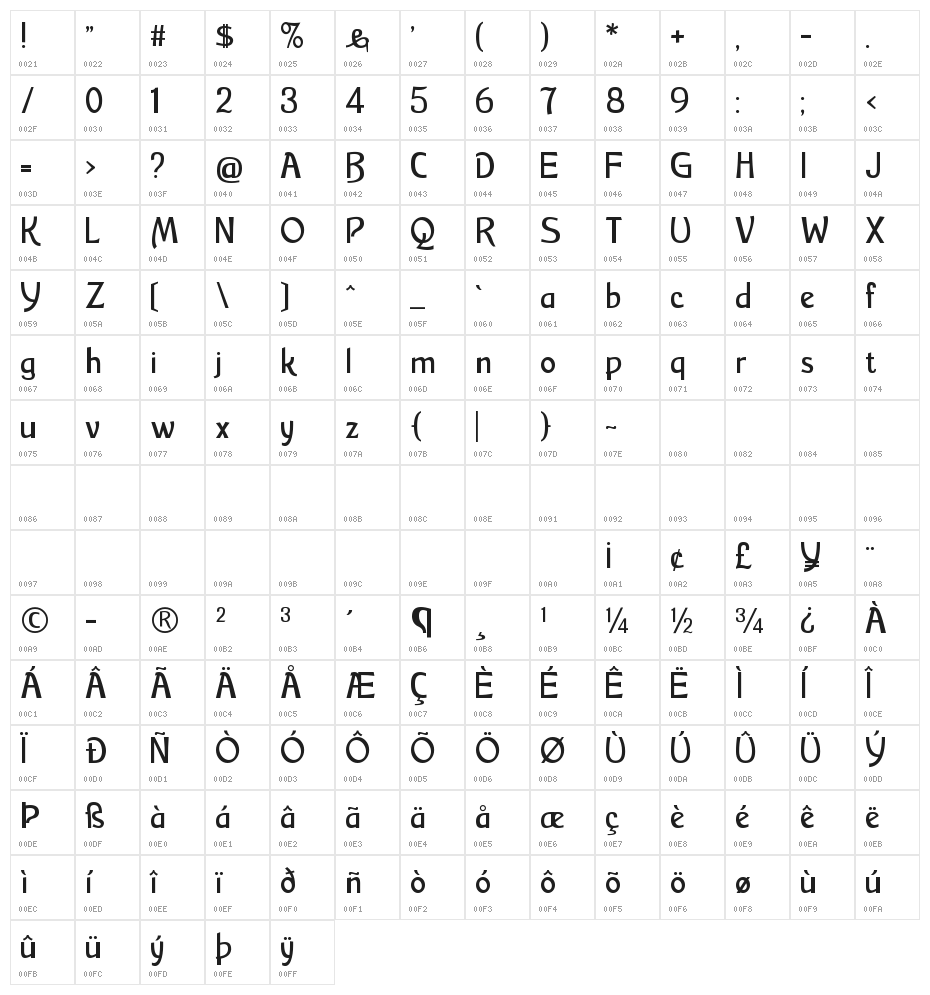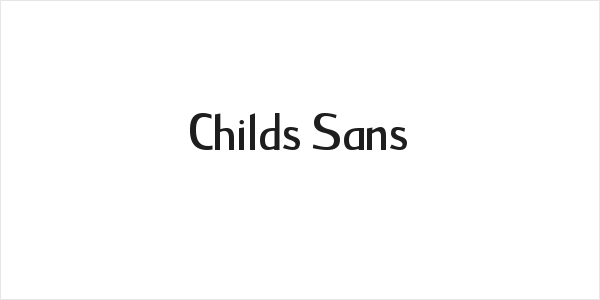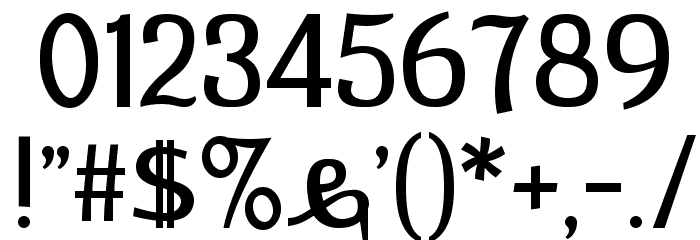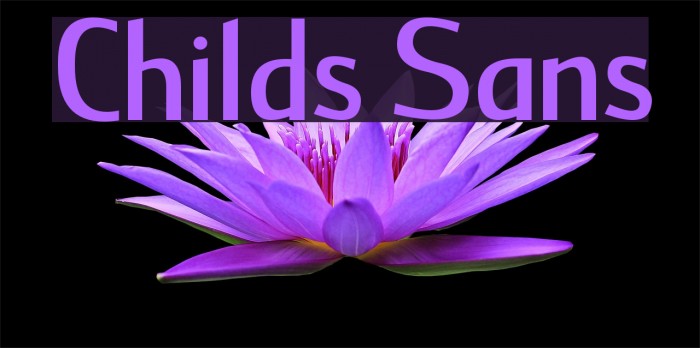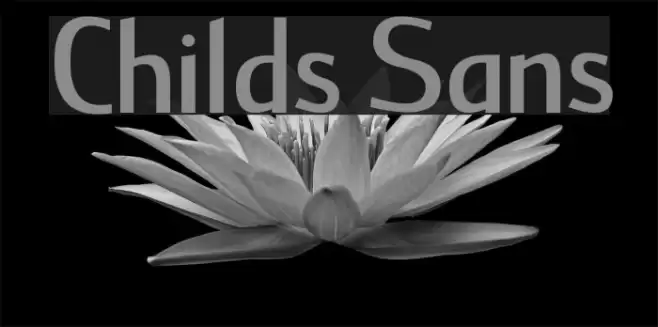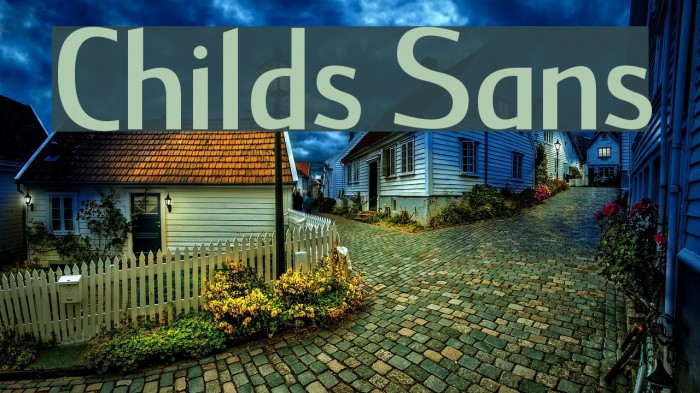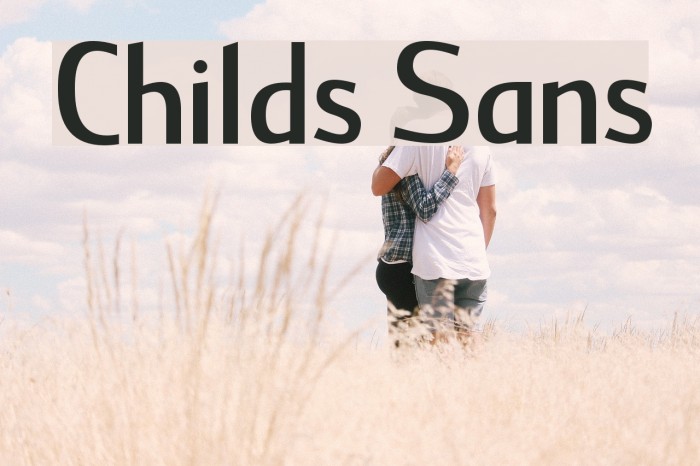
Childs Sans Font
Childs Sans Description
This font features a playful and slightly whimsical design, characterized by its rounded edges and subtle variations in stroke width. The uppercase letters are bold and assertive, while the lowercase letters maintain a friendly and approachable feel. The numerals are clear and distinct, making them easily readable. Special characters are designed with a touch of creativity, adding to the font's overall charm. The font's style is versatile, suitable for both casual and professional settings, offering a unique blend of modernity and tradition.